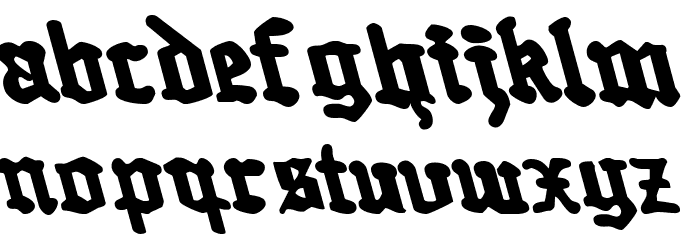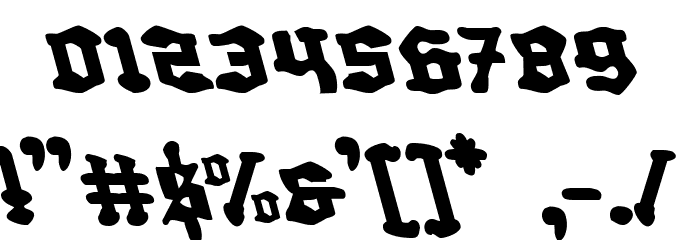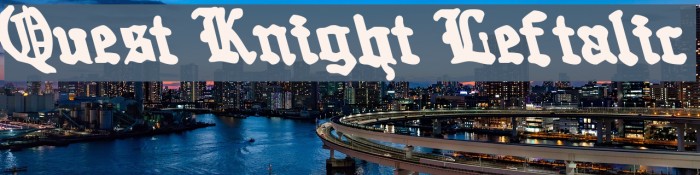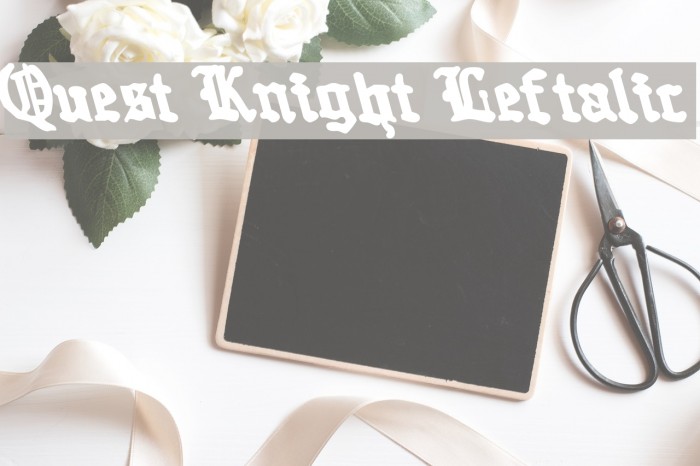
Quest Knight Leftalic Font
This font exudes a bold and dramatic presence, characterized by its intricate and angular design. The letters are reminiscent of medieval script, with sharp edges and a strong, authoritative feel. The uppercase letters are particularly striking, with a sense of grandeur and formality. The lowercase letters maintain the same stylistic elements, ensuring consistency throughout. Numbers and special characters are designed with the same attention to detail, making them suitable for thematic projects. The overall appearance is both historical and decorative, making it ideal for projects that require a touch of antiquity and elegance.
A bold, medieval-inspired font with intricate, angular design elements.
- Proposed Projects: Ideal for historical-themed designs, fantasy book covers, medieval event invitations, and decorative signage.
- Category: Blackletter
- Overall Style: Vintage
- Use Case: Logos, Headlines, Decorative text